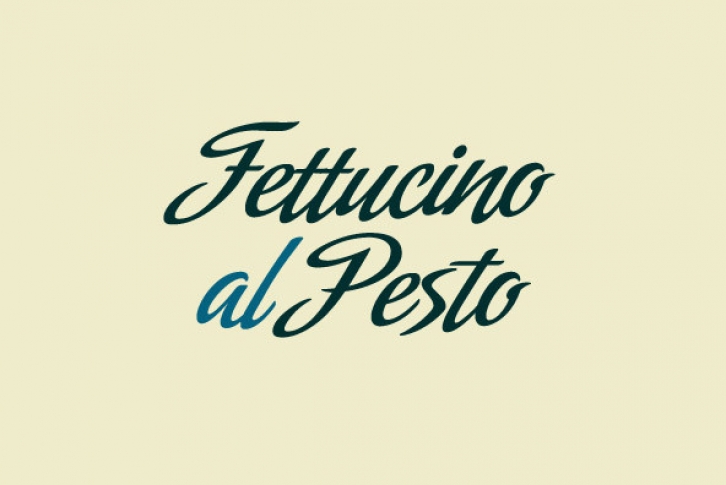
Amorinda is a connected script that manages to be wild and disciplined at the same time. It can scream wildly within a design or smoothly blend in to make it more human. With its versatile character and a complete set of alternates, Amorinda is the perfect display face for everything from product branding to signage. This 2007 version of Amorinda is now available in OpenType format to expand possibilities of use with lots of alternates when used with OpenType-aware applications such as Adobe Creative Suite.